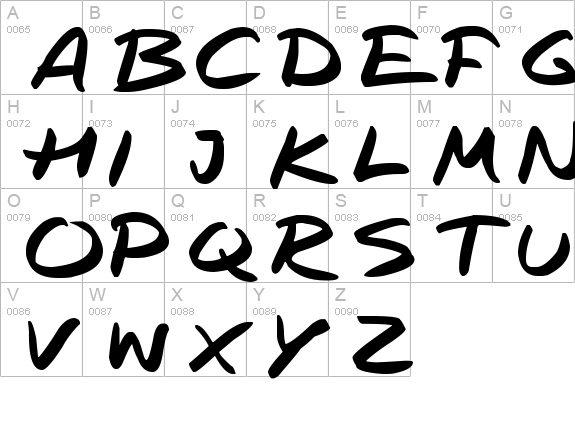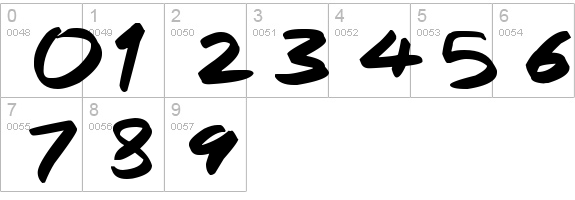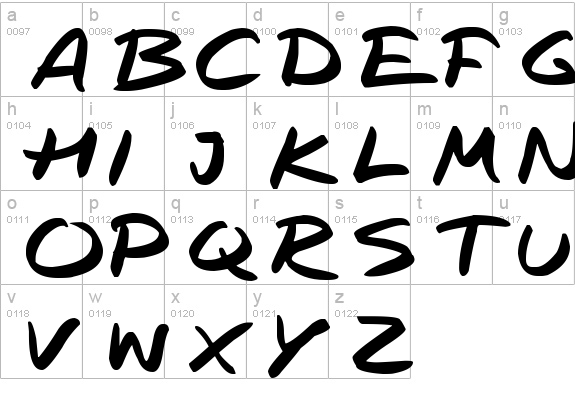
Rapid Inks Font Details
Rapid Inks is a free for personal use font in the Script > Handwritten category, designed by Darrell Flood. It has been downloaded 168 times and is available for Windows, Mac and Linux.
Rapid Inks font is a bold and dynamic typeface that exudes energy and modernity. With its sleek lines and sharp angles, this font is perfect for making a statement in any design project. Whether you're creating a poster, a logo, or a website, Rapid Inks will surely catch the eye of your audience.